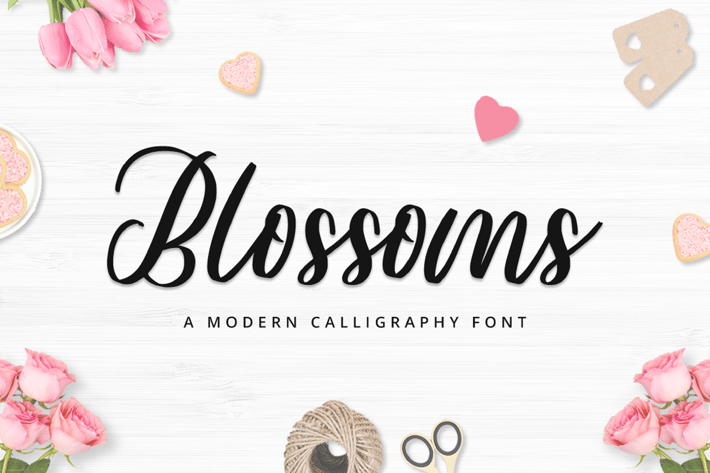
Modern Calligraphy Font
Want to transport your audience to a world of eternal spring, tea parties, and sunshine? Want your projects to spark happiness and engagement?
Introducing Blossoms - A Modern Calligraphy Font.
A modern and stylish handcrafted calligraphy font that’ll make your audience swoon and enhance your branding projects, printed materials, and website design.
Every stroke and curve was created to capture the essence of modernity and style. Ideal for social media banners; posts, and ads, printed quotes, t-shirt designs, packaging, or even as a modern text overlay to any background image.
Blossoms font includes Standard Characters, Numerals, and Punctuation, as well as Multilingual Options to make your branding globally acceptable.
Get ready to engage and captivate your audience with Blossoms!
Multilingual & Ligature Support
Full sets of Punctuation and Numerals